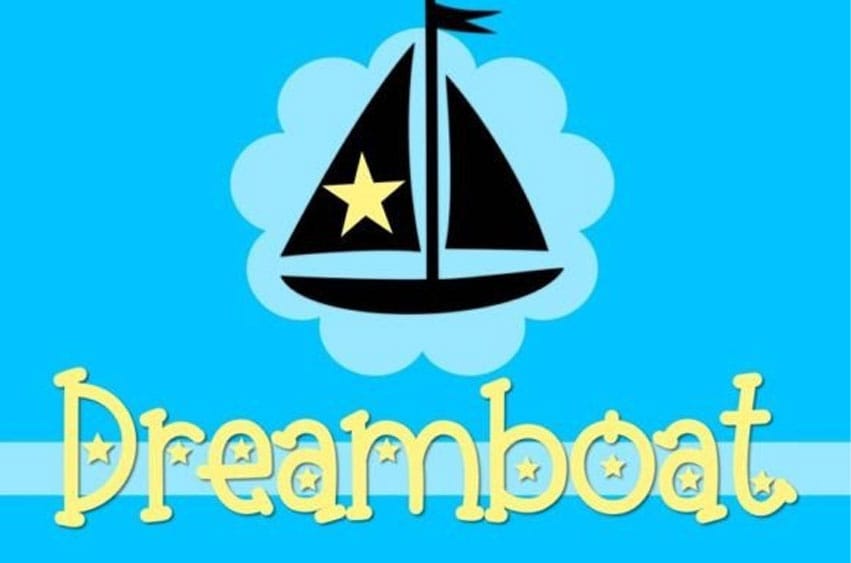
Dreamboat Font is a fun and quirky handwritten font that radiates charm and personality. Its playful letterforms feature a mix of irregular curves and exaggerated strokes, inspired by the carefree nature of handwriting. The font’s informal and breezy design creates a sense of approachability and friendliness, making it perfect for anything from social media graphics to greeting cards.
Dreamboat’s cheerful and whimsical style is sure to add a touch of fun and creativity to your project.